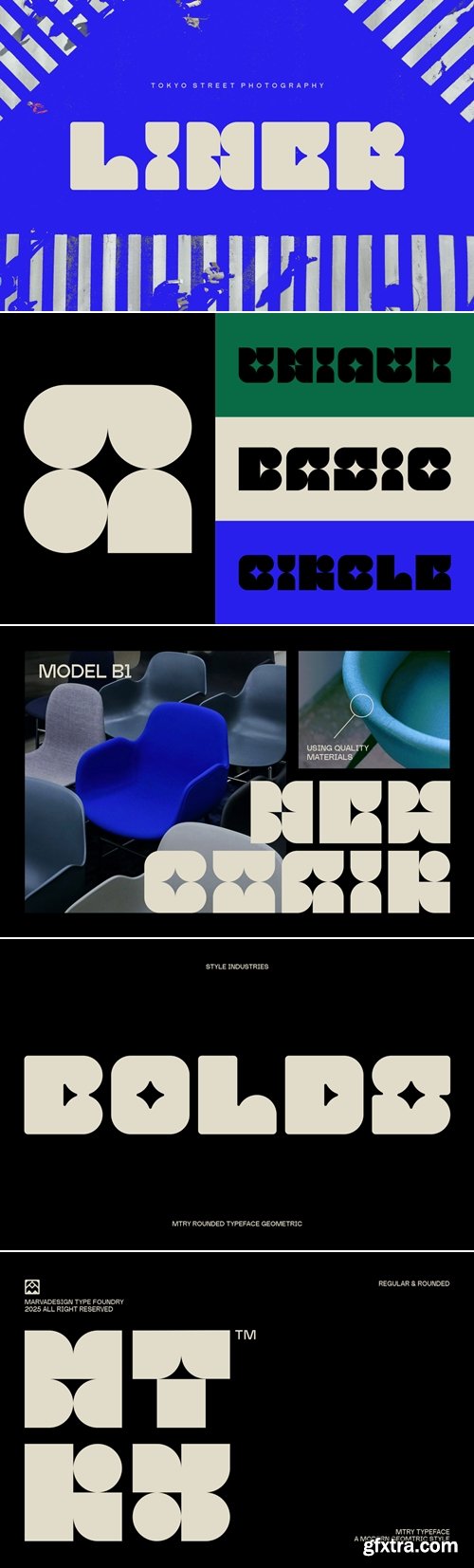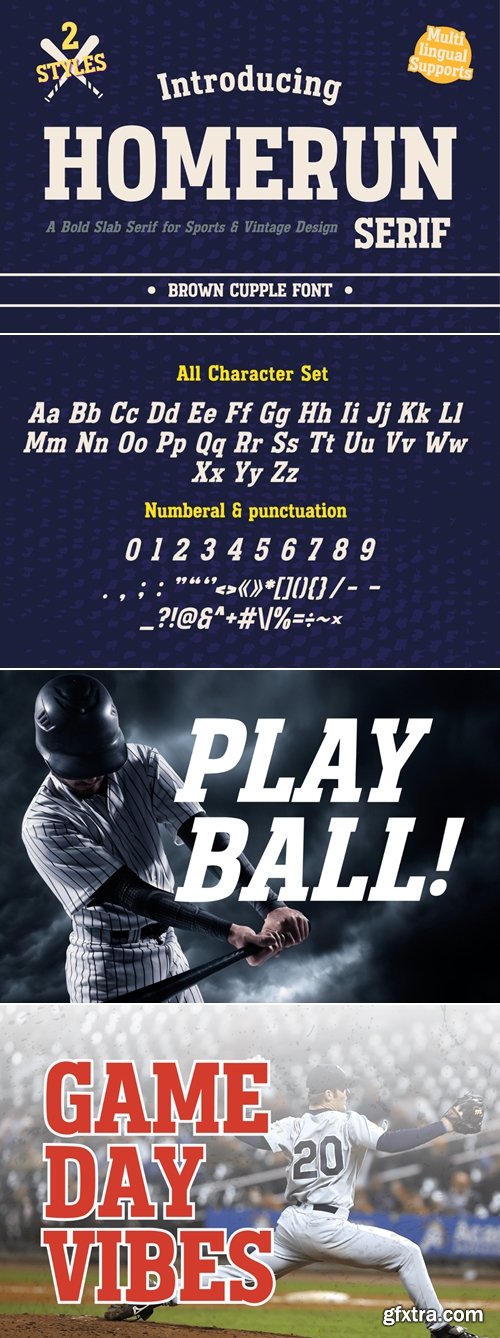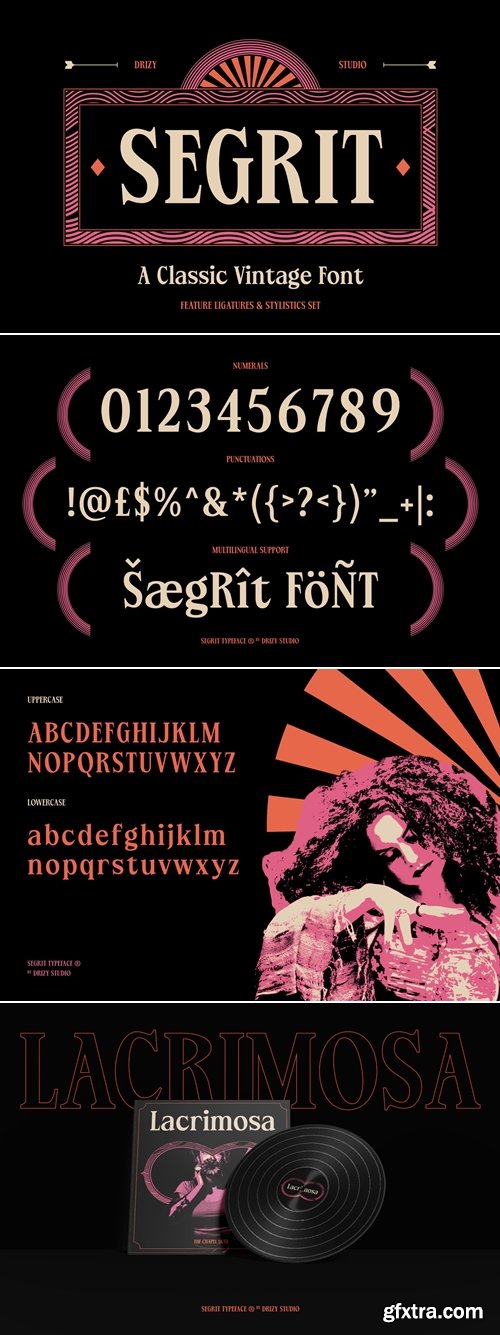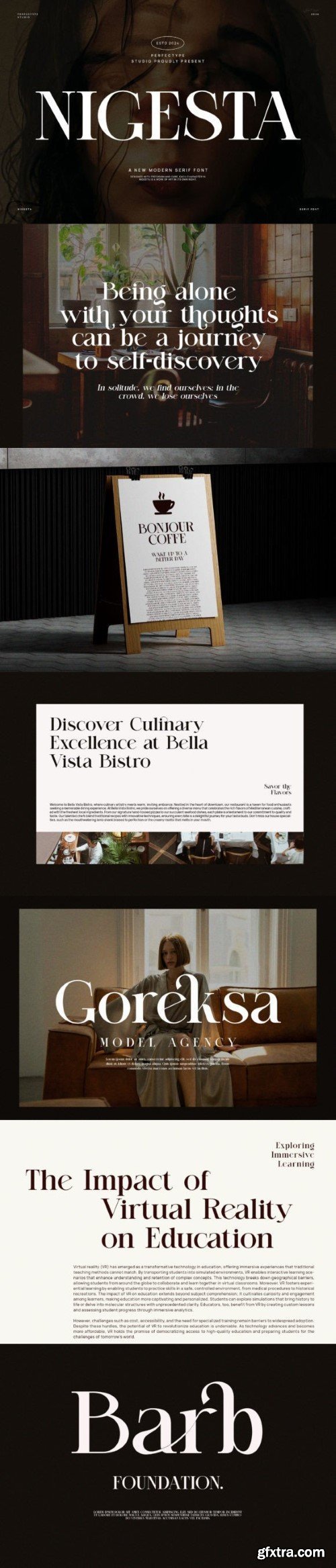
- MTRY a modern experimental geometric typeface. The letter design is very bold, blocky, and uses distinctive visual elements such as circular curves and star-shaped cuts on the inside of the letters, creating a unique and futuristic look. MTRY carries a rounded geometric style, combining basic shapes such as circles, squares, and triangles with a very decorative and artistic approach. This typeface is suitable for creative branding purposes, poster designs, or titles that want to stand out and stand out. The overall look of this font is strong, playful, and contemporary, making it ideal for design projects that want to be bold and unconventional.
- Quirxan is a bold sans-serif font with uniquely wide letterforms that create a strong visual impact. Great for headlines, logos, book covers, and social media content.
- Quirxan is perfect for headlines, logotypes, magazines, packaging, quotes, movies, games, cover albums, book covers, and flyers, it's a perfect solution for creating eye-catching designs that stand out in any context.
- Clarisans is a sans-serif font with a fun and energetic vibe. Its expressive character makes it ideal for headlines or designs that aim to be bold, cheerful, and inviting
- Clarisans is perfect for headlines, logotypes, magazines, packaging, quotes, movies, games, cover albums, book covers, and flyers, it's a perfect solution for creating eye-catching designs that stand out in any context.
- Spacemoid is a monospaced font with a futuristic and modern style. Perfect for technology, space, cyber, or coding-themed designs.
- Spacemoid is perfect for headlines, logotypes, magazines, packaging, quotes, movies, games, cover albums, book covers, and flyers, it's a perfect solution for creating eye-catching designs that stand out in any context.
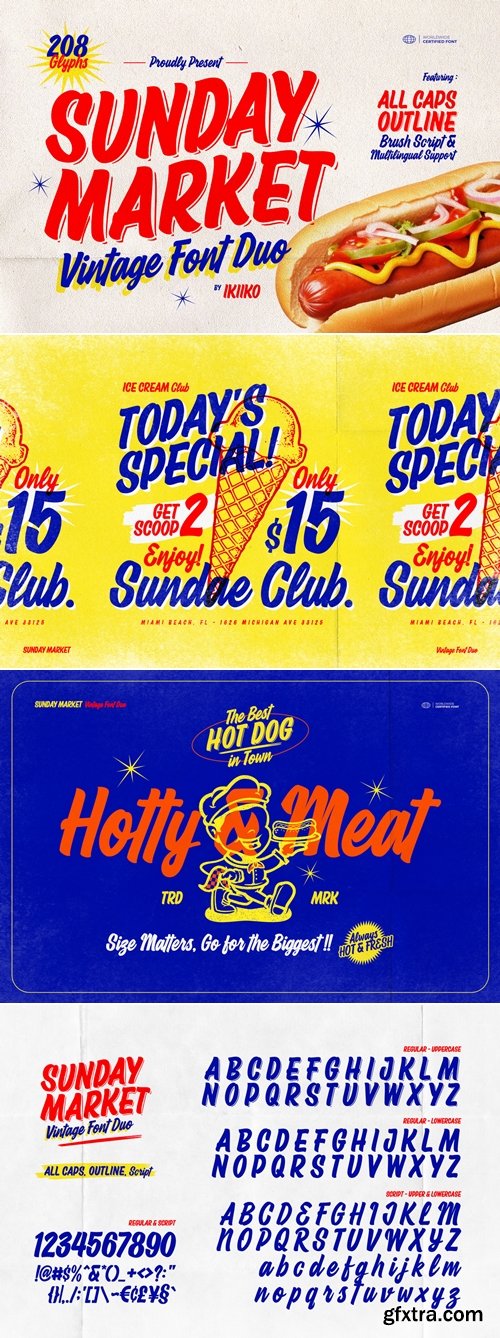
- Sunday Market is a charming typeface set that encapsulates the nostalgic essence of the 1960s era. This font duo seamlessly blends retro vibes with a modern twist, making it an ideal choice for various design projects.
- There are two different styles in the Sunday Market font duo: a brush font and a script font. With its broad strokes and natural handwriting, the brush font has a vintage vibes that is reminiscent of hand-painted signs you often see in busy marketplaces & groceries. However, the script font, which has curved and flowing lines reminiscent of old-fashioned script lettering, exudes sophistication and beauty.
- This font is ideal for a wide range of designs. It gives character and flair to any design that features groceries, fast food restaurants, or vintage-themed posters. This font pair will instantly capture the nostalgic appeal of bygone eras, whether you're designing menus for a hip cafe, signage for a farmers' market, or promotional materials for an event with a vintage theme.
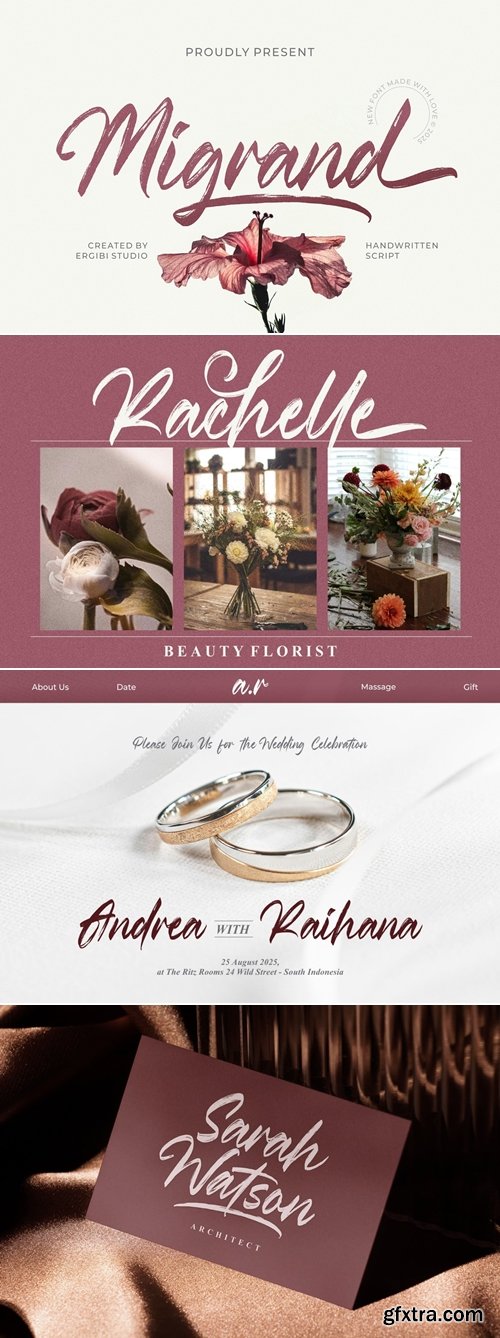
- Migrand a Handwritten script font that blends the elegance of natural handwriting with the raw energy of textured brush strokes. Perfectly imperfect, Migrand carries a dynamic, organic feel that adds personality and movement to your designs.
- With its flowing curves and authentic brush texture, Migrand is ideal for branding, posters, packaging, wedding invitations, social media graphics, and more. Every stroke is designed to give your work a handcrafted, artistic vibe—effortlessly stylish and uniquely bold.
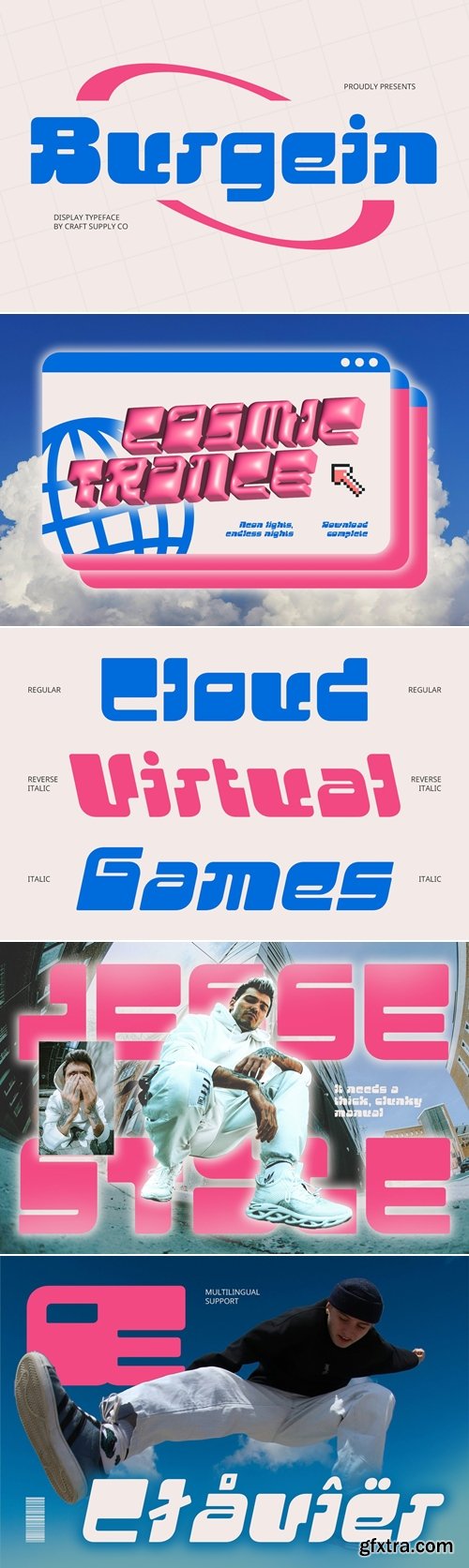
- Nostalgic Y2K Style with a Modern Twist Burgein Display Font brings back the vibrant essence of the late ’90s and early 2000s through a bold display design inspired by Y2K aesthetics. Its form captures the era’s playful and experimental spirit, full of optimism, digital futurism, and pop culture energy.
- Retro Shapes with Bold, Funky Expression Featuring geometric or rounded contours, exaggerated forms, and unconventional details, Burgein radiates a funky and eye-catching presence. This makes it ideal for projects that want to inject personality, boldness, and an unmistakable throwback vibe into their visuals.
- Energetic and Cheerful Vibe Burgein embodies a sense of fun and freedom. Its funky vibe and energetic form make it a natural fit for projects that seek to break norms, radiate positivity, and deliver a strong visual impact. From its bouncy curves to its confident stance, every letter feels alive with personality.
- Perfect for Playful and Bold Design Projects This font thrives in bold applications—ideal for music posters, fashion lookbooks, edgy packaging, nostalgic branding, or digital designs that embrace eccentricity. Burgein brings Y2K back to life with a modern twist, making it perfect for creatives who want to infuse their work with joy, nostalgia, and bold attitude.
- Bloxie is a powerful and bold display typeface, available in both Regular and Rounded styles. It’s a statement-making font designed for maximum impact. With thick, geometric letterforms and a compact structure, it’s perfect for grabbing attention in posters, logos, and headlines. The Regular version delivers a strong, edgy appearance, while the Rounded version softens the tone for a more approachable and playful feel—ideal for versatile branding and impactful design work.